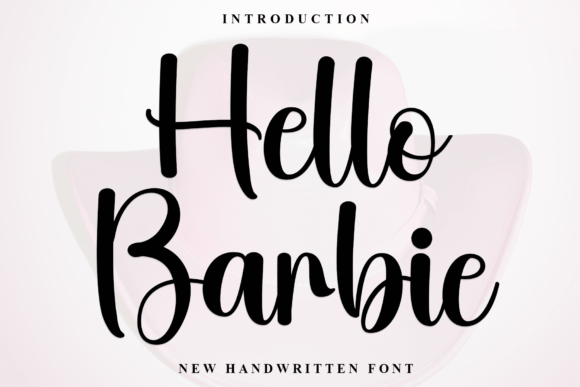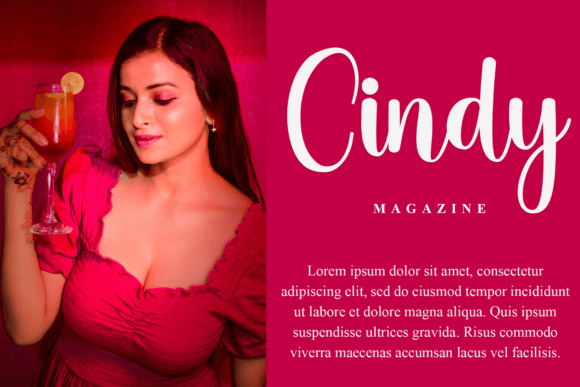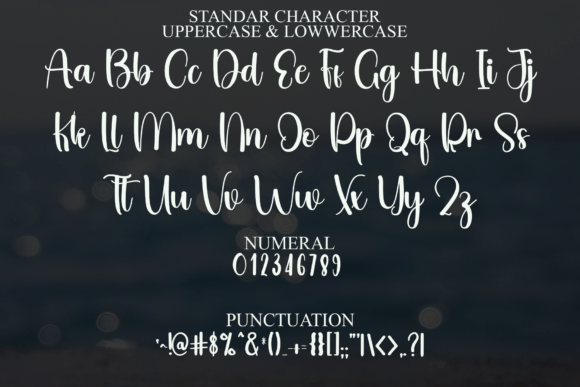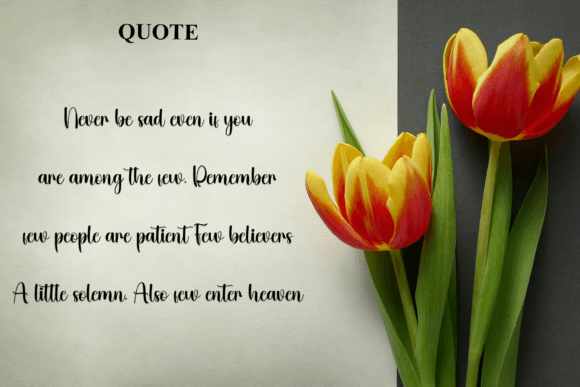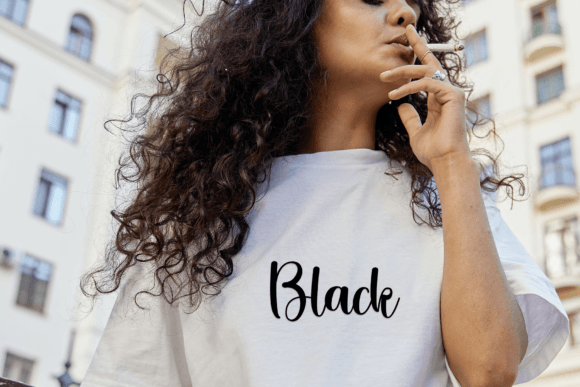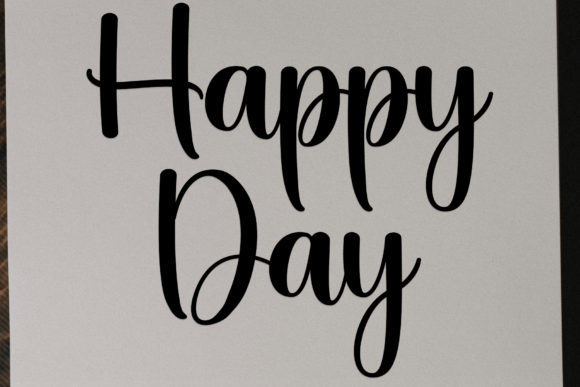
The Perfect Script Font for Your Next Design Project
Enter the Hello Barbie Font, a stunning script font that adds a touch of elegance to any design. Whether you’re creating wedding invitations, thank you cards, or business cards, this font is sure to make your designs stand out. With its PUA coding, you can easily access all the amazing glyphs and ligatures, making it a valuable tool for designers.
Hello Barbie Font Key Features
• Font Family: A custom-designed font for the Hello Barbie doll, specifically created for the doll’s interactive voice assistant.
• Size: The font size is optimized for the doll’s digital display, with a typical font size range of 10-24 points.
• Resolution: Designed to be displayed on a low-resolution digital display, with a resolution of 96 dpi (dots per inch).
• Unique Characteristics: The font features a playful, child-friendly design with rounded edges and a clear, easy-to-read appearance, making it suitable for a children’s toy.
Hello Barbie Font Review
When I first laid eyes on the Hello Barbie Font, I was immediately drawn to its playful and whimsical vibe ✨. The font’s unique blend of cursive and sans-serif elements makes it perfect for adding a touch of elegance to any design project.
Here are some features that I particularly enjoy about the Hello Barbie Font:
• Its versatility makes it suitable for a wide range of design applications, from packaging to editorial design ✨.
• The font’s subtle curves and rounded edges give it a friendly and approachable feel ✨.
• The font’s high level of legibility ensures that it remains easy to read even at smaller font sizes ✨.
• The font’s lack of bold weights may make it less suitable for use in headlines or titles ⚠️.
• The font’s ornate details may be distracting in certain design contexts, such as in minimalist or modern designs ⚠️.
Overall, I think the Hello Barbie Font is a great choice for designers looking to add a touch of sophistication and whimsy to their work. While it may not be perfect for every design project, its unique charm and versatility make it a valuable addition to any font library.
Tips: Use the “Hello Barbie Font” to create a whimsical and playful design for your children’s party invitations or social media graphics.
Tips: Use the “Hello Barbie Font” to create custom typography for your brand or product packaging.
Tips: Use the “Hello Barbie Font” to create engaging and colorful presentations for kids’ educational content or marketing materials.
The “Hello Barbie Font” is ideal for:
– Children’s party invitations and decorations
– Kid-friendly marketing materials and branding
– Educational content and presentations for kids
– Custom typography for product packaging and labels
Alternatives to Hello Barbie Font for Designers
The Carolyna Pro Font is a versatile, modern sans-serif font that works well for a wide range of applications, from fashion and beauty to food and travel. It’s a great alternative to Hello Barbie Font for designers who want a more contemporary and clean look. Carolyna Pro Font is also highly legible, making it perfect for body text and headlines.
The Alex Brush Font is a beautiful, handwritten script font that’s perfect for creating a personal and emotive look. It’s ideal for designers who want to add a touch of warmth and personality to their projects. Compared to Hello Barbie Font, Alex Brush Font has a more organic and hand-written feel, making it suitable for brands that want to convey a sense of authenticity and human connection.